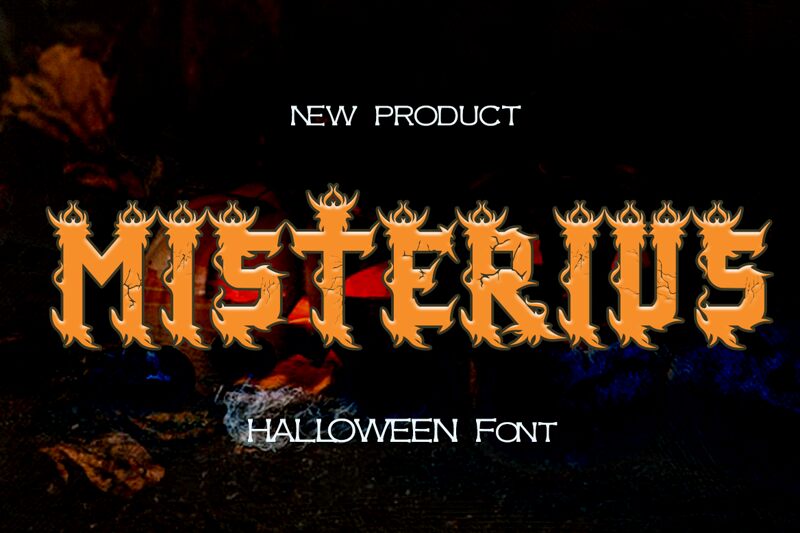
Misterius font by Winarko is a free holiday font exuding a sleek, dynamic, and decorative design. Filled with mystery, its edgy dark visual aesthetic is eye-catching while making a strong initial impact. The typeface is an ideal tool for fonts with a horror theme; its dramatic structure is often used during the Halloween season.
Create playful invitations for Halloween parties or brand your child’s holiday costumes with this typeface. Using it for thriller or horror novels, book covers, movie and video posters, and magazine covers is another way to make the best use of its capabilities. The decorative set can be utilized in digital assets, including online posts.